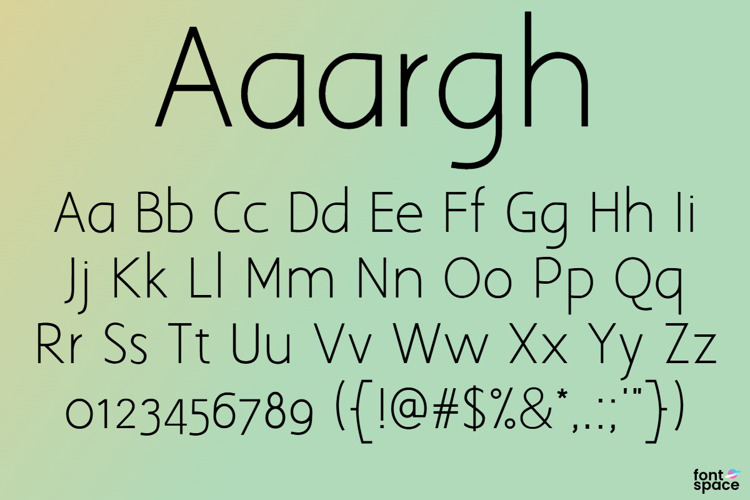
Aaargh Font
About Aaargh Font
A slightly anorexic font I made a while ago. I needed a really thin font for package designs (for Tooter Claxton's), something like the thin Avant Garde. But I thought the shapes used in Avant Garde were too geometrical, too old fashioned, too anal retentive. So I made this one. I kinda like it.
So nice. A clean font with just the right amount of personality.
Perfect. Simply and plain but neat and greta for project headings! 😃 LOVE IT!